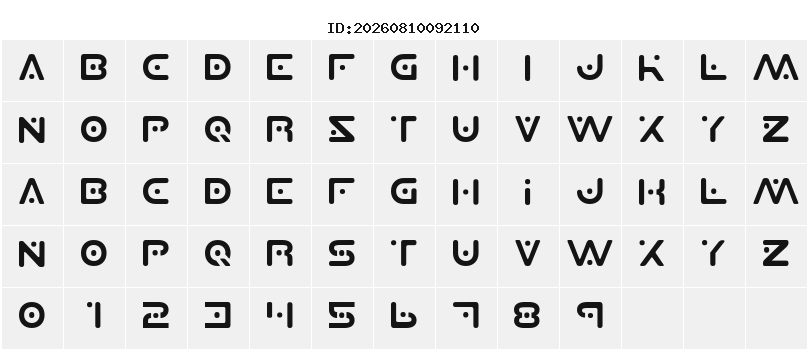
PCLifePlanetS Preview
• Font Name: PCLifePlanetS
• Font ID: Macromedia Fontographer 4.1 PCLifePlanetS
• Full Font Name: PCLifePlanetS
• Version: Macromedia Fontographer 4.1 30.11.2000
• PostScript Name: PCLifePlanetS
• Character Count: 135
About PCLifePlanetS.ttf
PCLifePlanetS.ttf is a modern, elegant sans-serif font designed for ultimate readability and visual harmony. Perfect for branding, headlines, web design, and print materials.